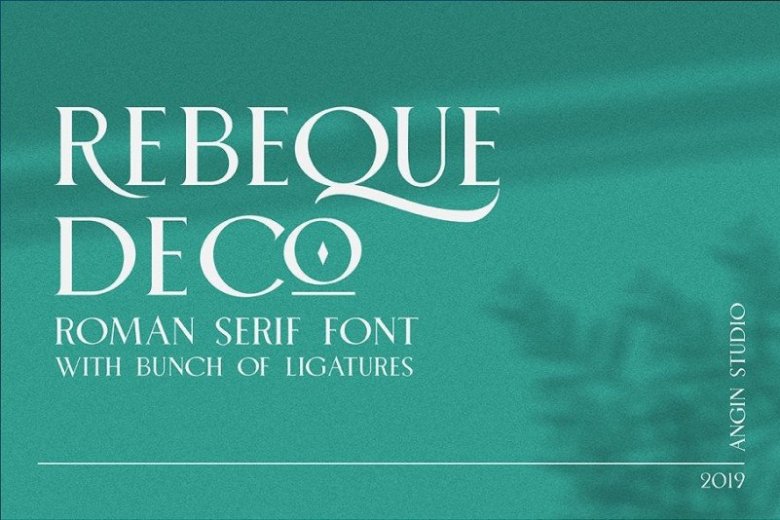
Rebeque Deco Serif Font
Hello friend. Rebeque Deco Font is an elegant serif. This typeface has many alternates with swashes that can make your lettering / logotype become more interesting. It’s created based on roman serif typeface with a touch of art deco style, This font created carefully to looks beauty and stunning.
It’s came as an all caps roman font with bunch of alternates and ligatures, this font have a fleksibility to use on any kind of project, We created this typeface as versitle as we can so it can give both vintage or modern expression.